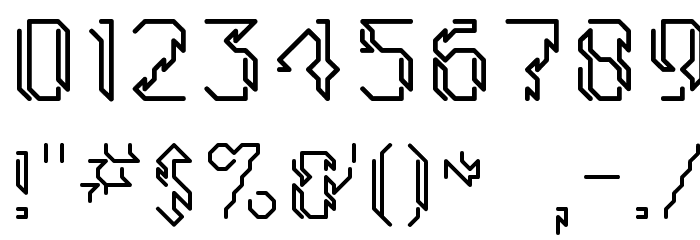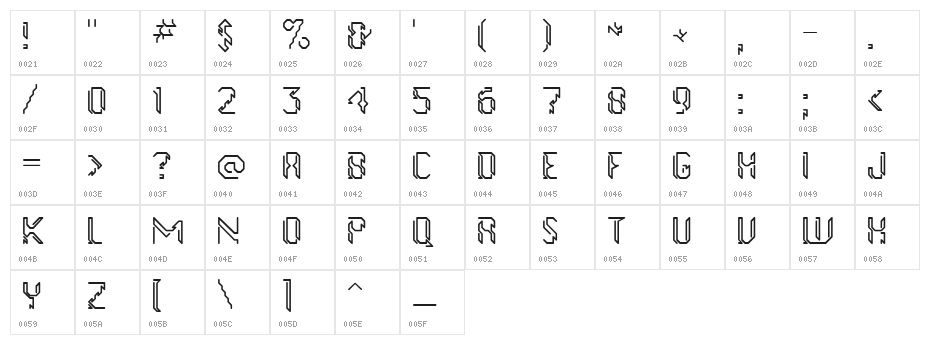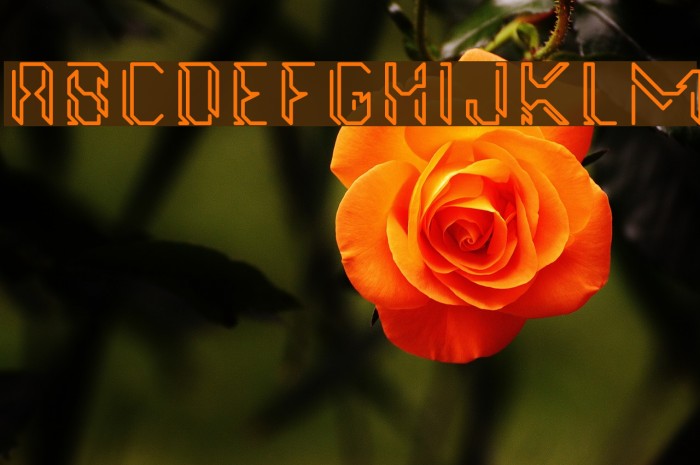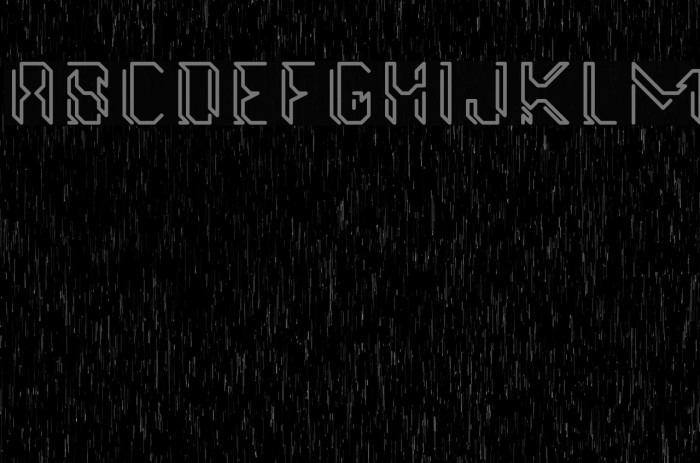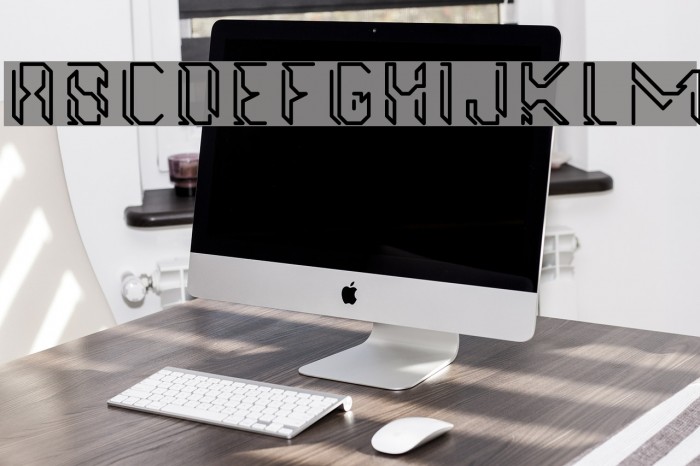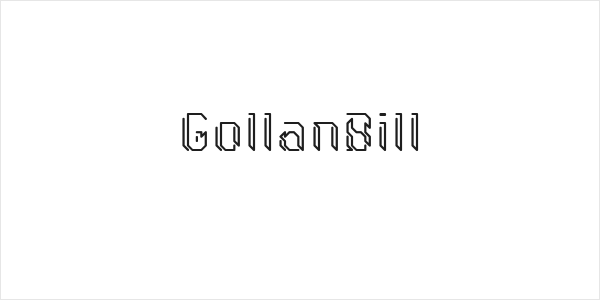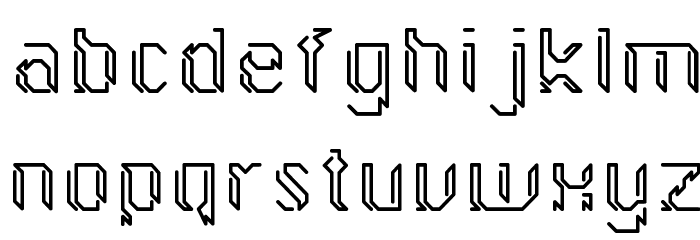
GollanBill Font
GollanBill Description
This font features a unique, geometric design with a futuristic and digital aesthetic. The characters are constructed with angular, sharp lines and a stencil-like appearance, giving it a distinct, tech-inspired look. The uppercase and lowercase letters maintain a consistent style, with each character exhibiting a blocky, segmented form. The numbers and special characters follow the same design principles, ensuring uniformity across the entire typeface. The font's structure is both bold and intricate, making it stand out in any design context.
| Proposed Projects | Ideal for technology branding, video game titles, futuristic posters, and digital media projects. |